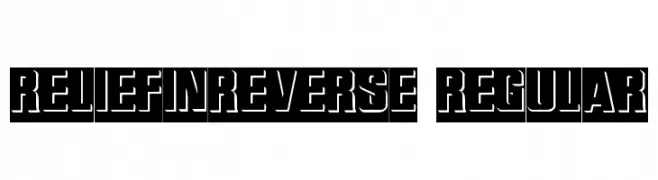
( Fonts by Casady & Greene )
A decorative and elegant font with art deco influences and intricate line work.
( Fonts by David Rakowski )
An elegant, decorative font with intricate curves and a classic calligraphic style.
( Fonts by David Rakowski )
A bold, condensed font with tall, striking letterforms and a vintage-modern appeal.
( Fonts by David Rakowski )
A sleek, elongated font with narrow, minimalistic letterforms.
( Fonts by David Rakowski )
A modern, ultra-thin font with elongated, narrow characters.